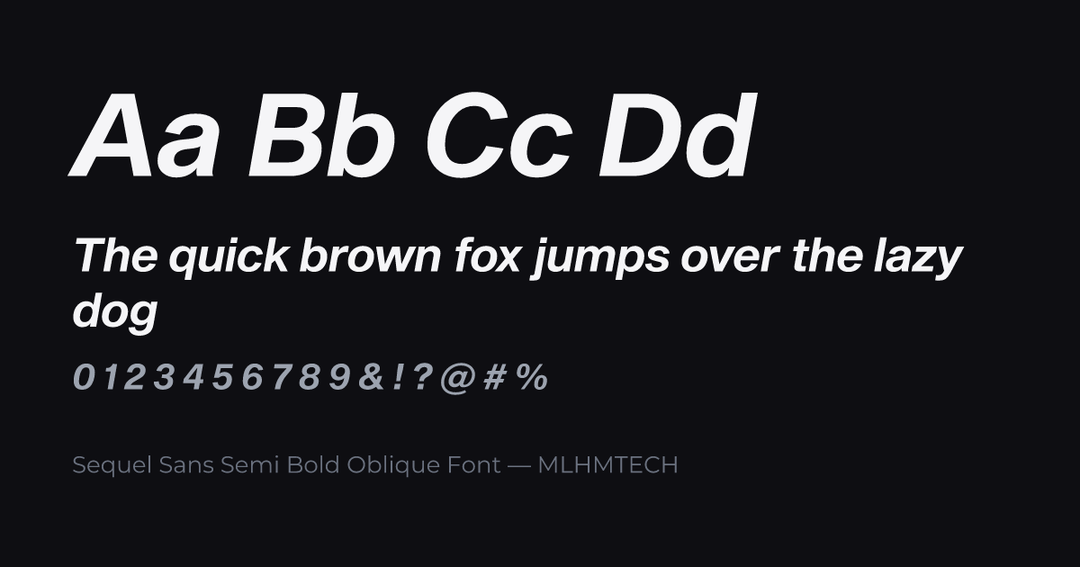
Sequel Sans Semi Bold Oblique Font
Sequel Sans Semi Bold Oblique is a modern sans-serif font with a sleek, oblique style. Ideal for headlines, branding, and creative projects.
Sequel Sans Semi Bold Oblique is a versatile sans-serif typeface that combines geometric clarity with a dynamic oblique slant. Its semi-bold weight ensures strong presence without overwhelming, making it perfect for headings, subheadings, and emphasis in both print and digital media.
This font is part of the Sequel Sans family, known for its contemporary aesthetic and excellent legibility. Whether you're designing a logo, crafting a poster, or building a brand identity, this font adds a touch of sophistication and energy.